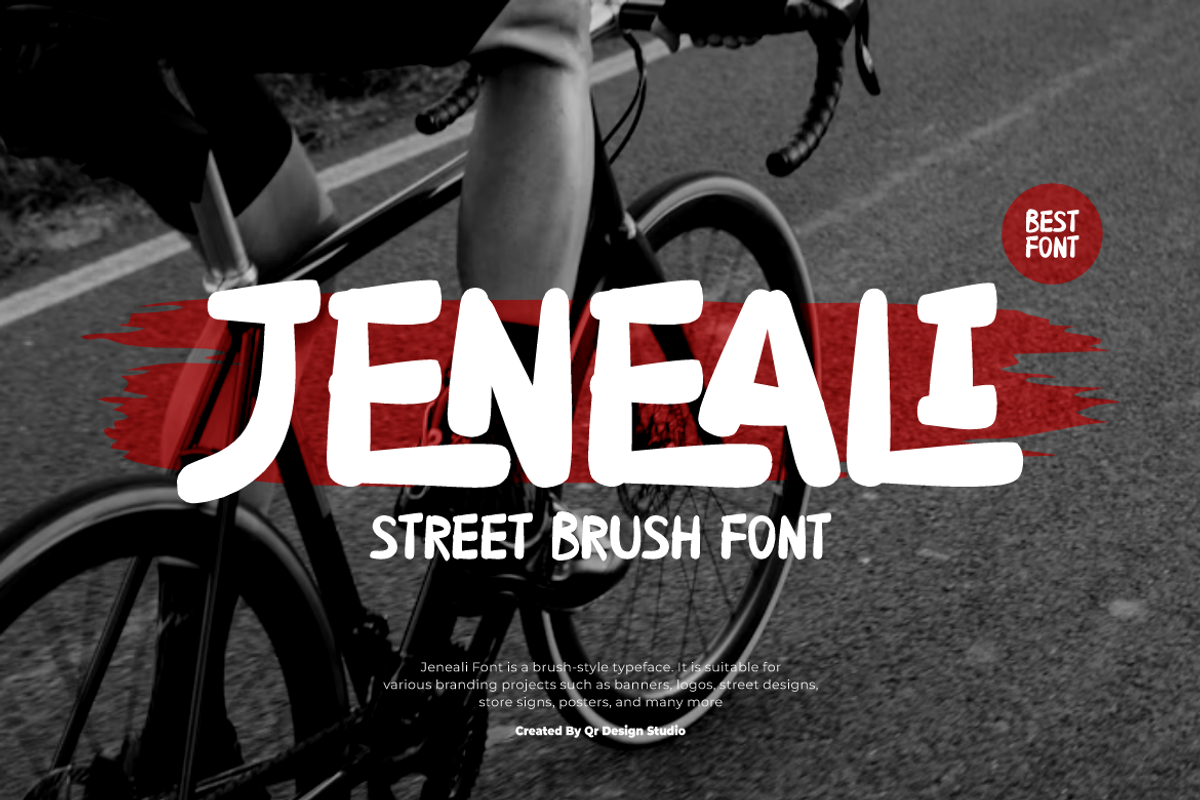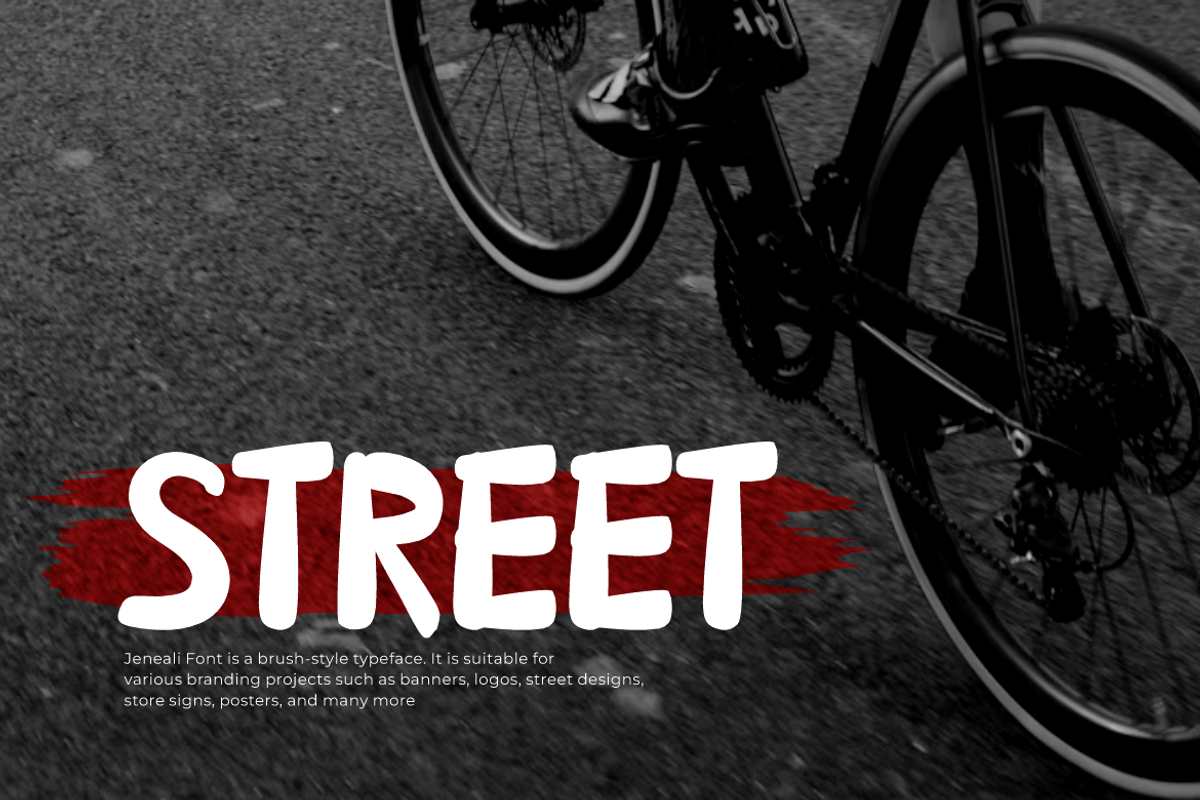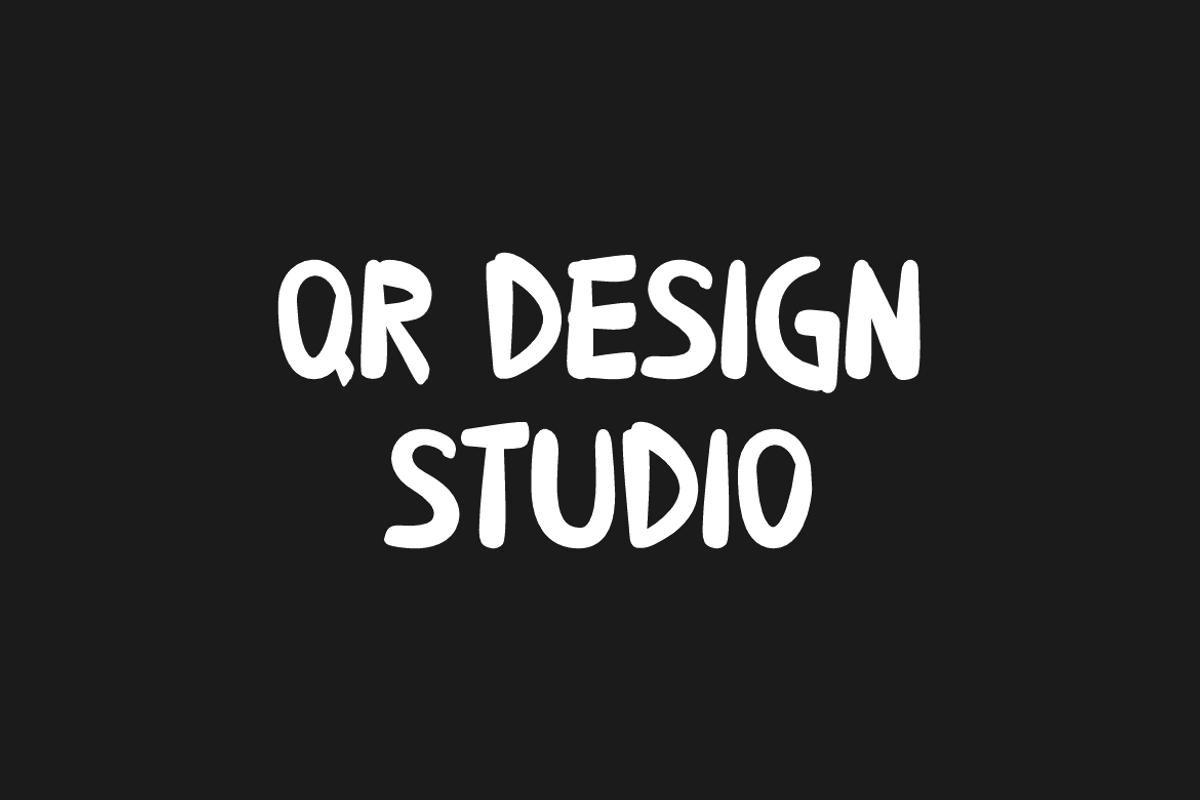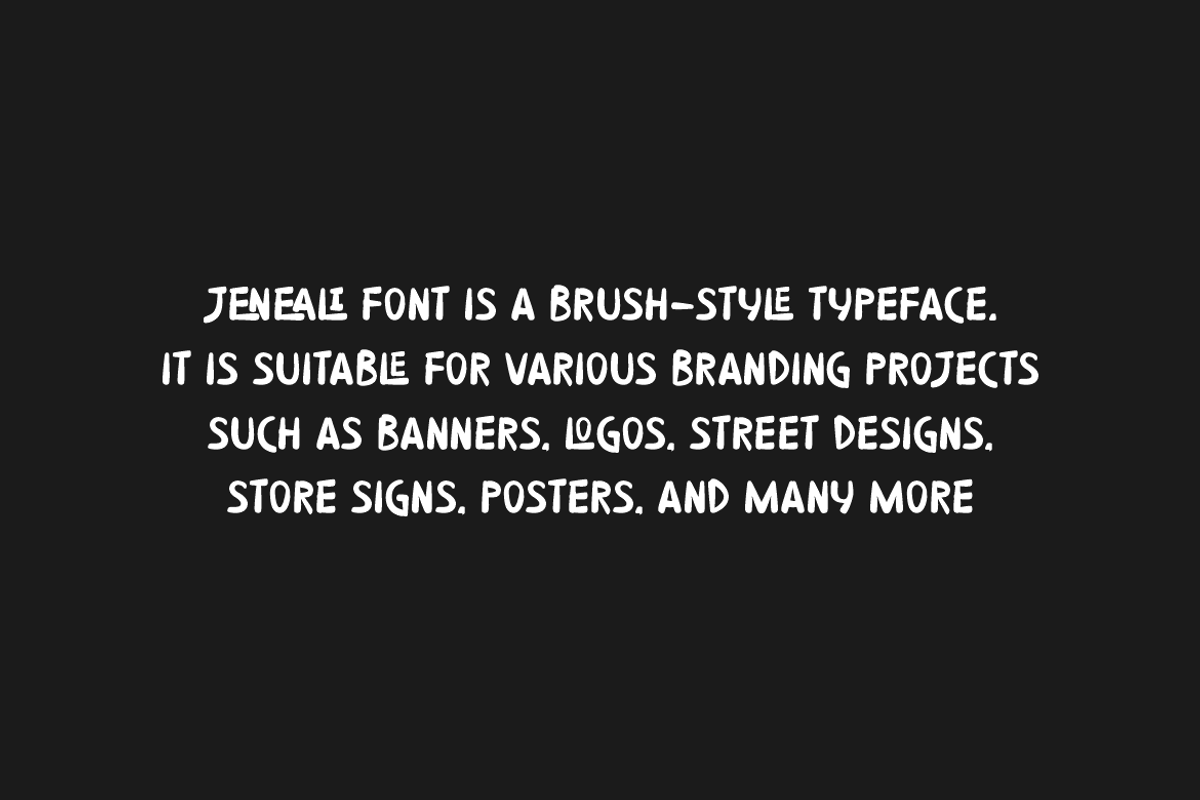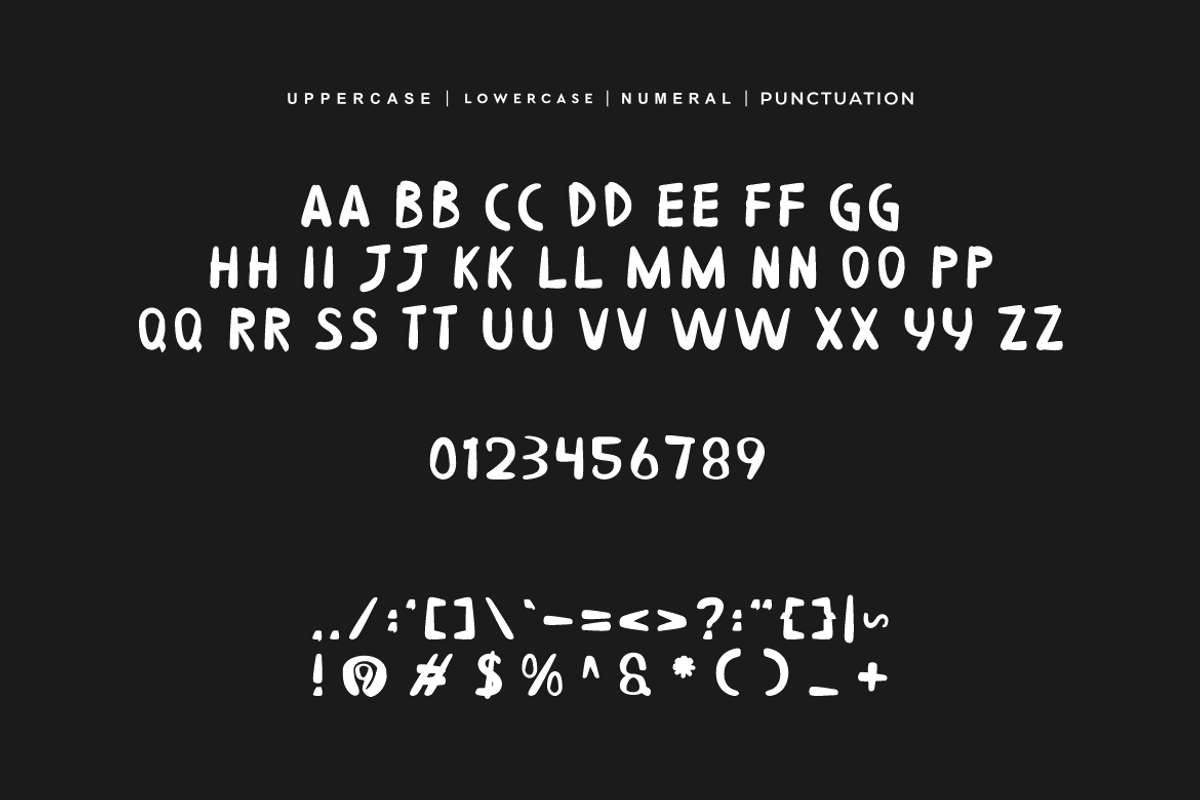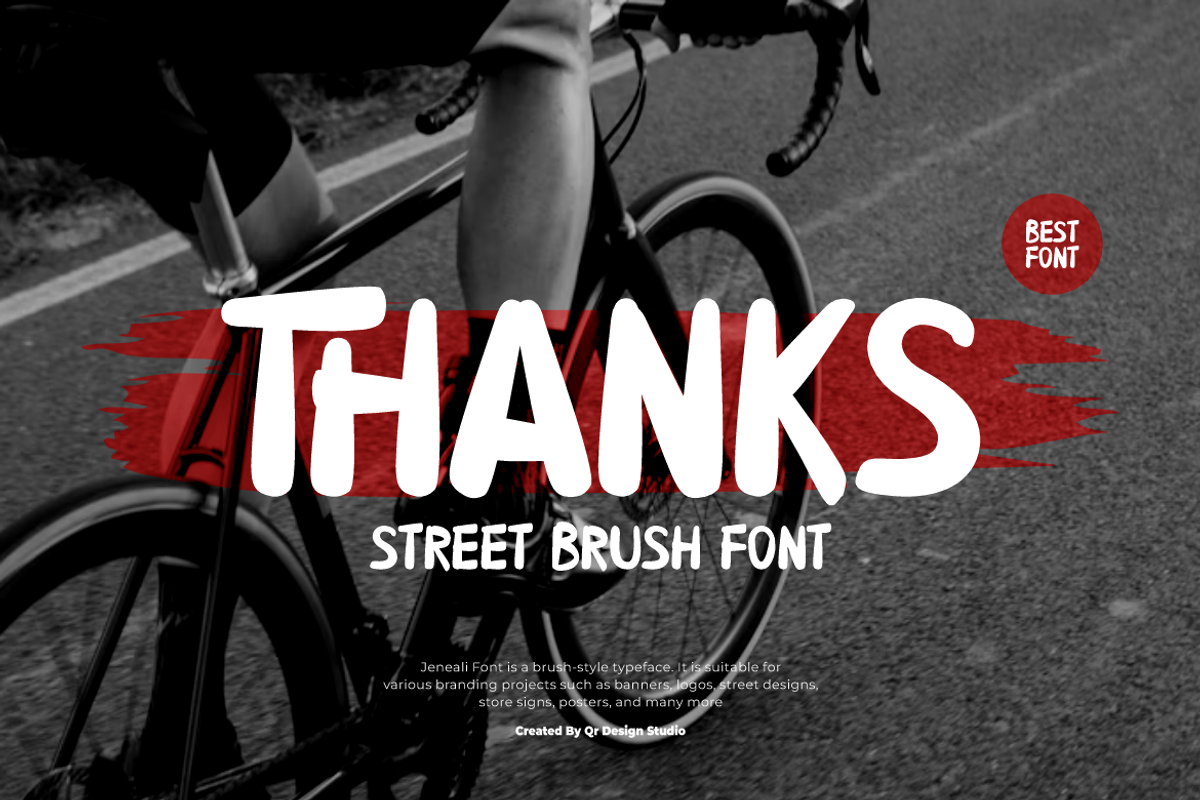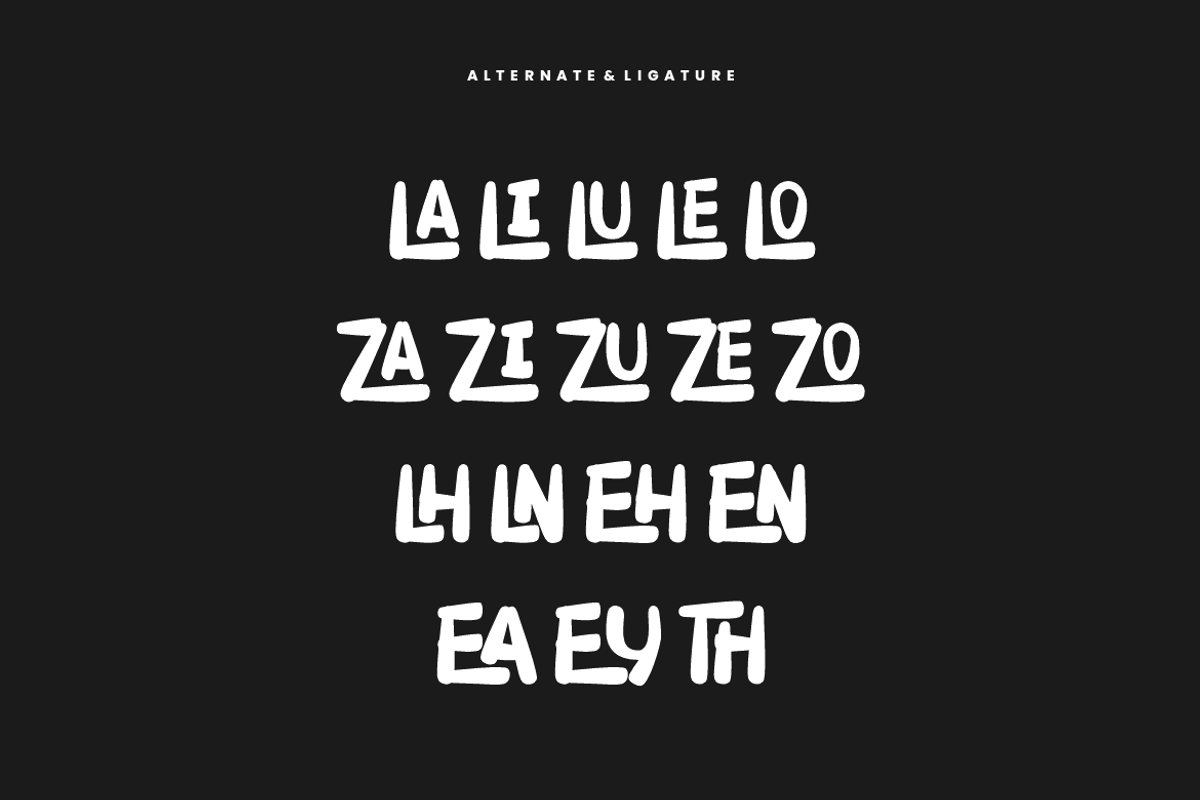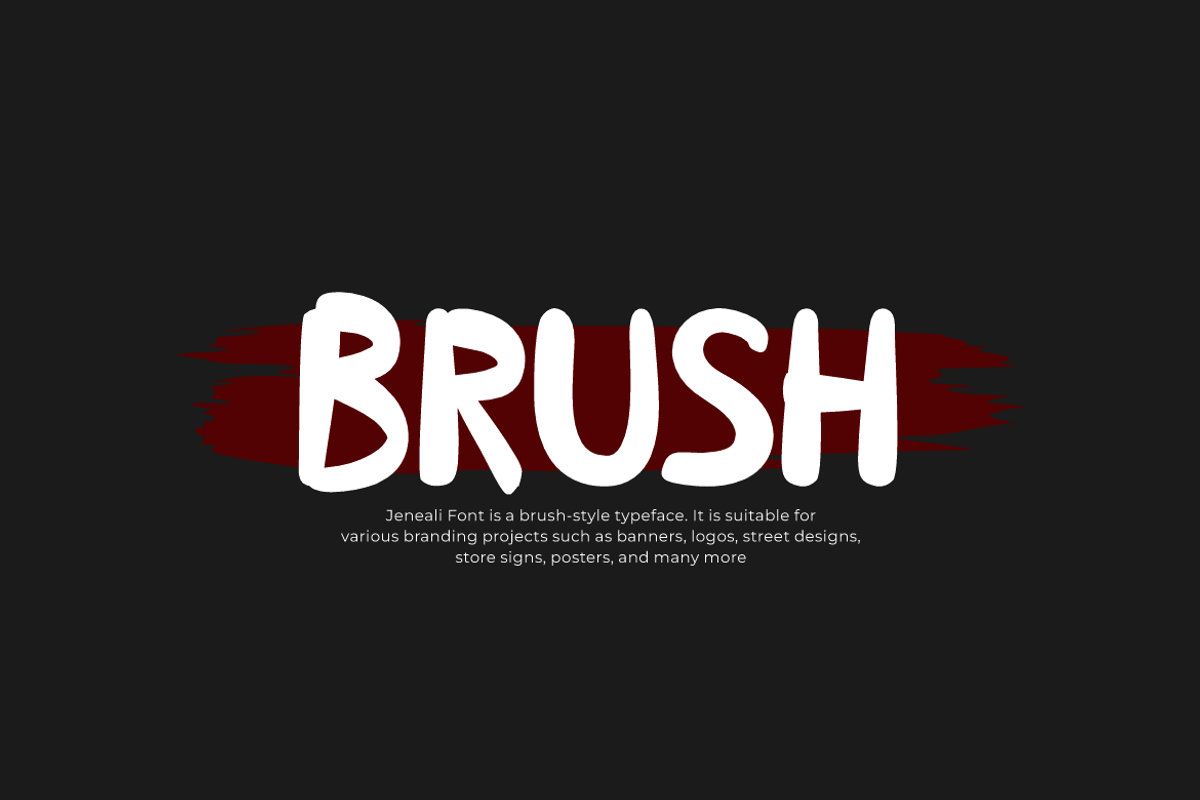
Jeneali - Street Brush Font
Jeneali Font is a brush and authentic display typeface. It’s perfect for various branding projects such as logos, street designs, and more. This font stands out beautifully in a wide range of contexts.